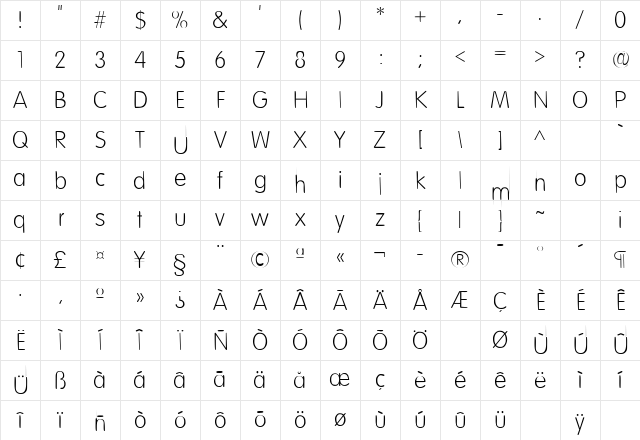
Elementary Light SF Regular Free Font
Design Context for Elementary Light SF
Elementary Light SF is a composed and adaptable typeface that performs quietly and consistently across a wide range of design contexts. Its slender proportions lend an understated elegance to any composition.